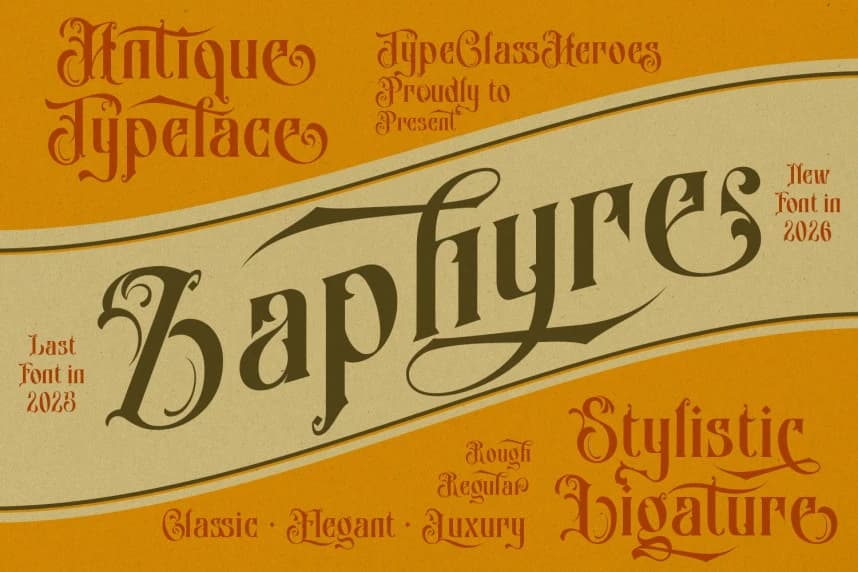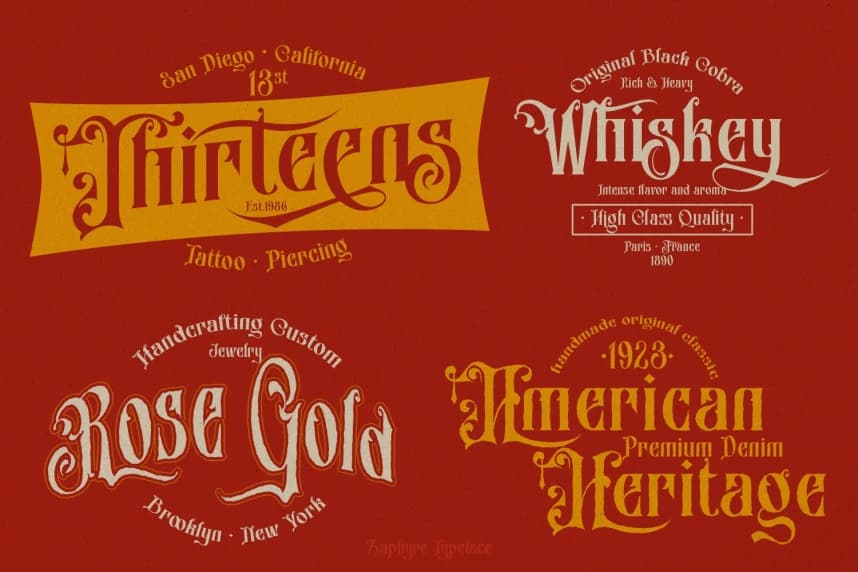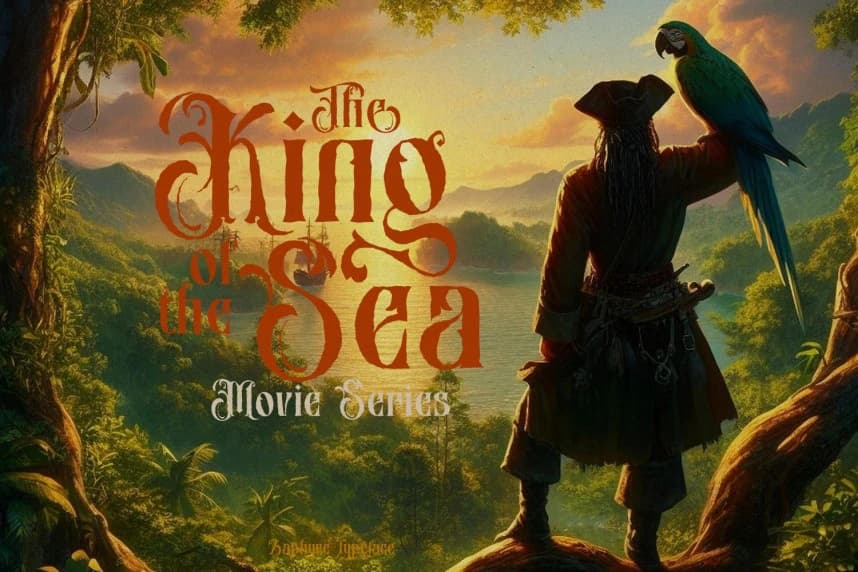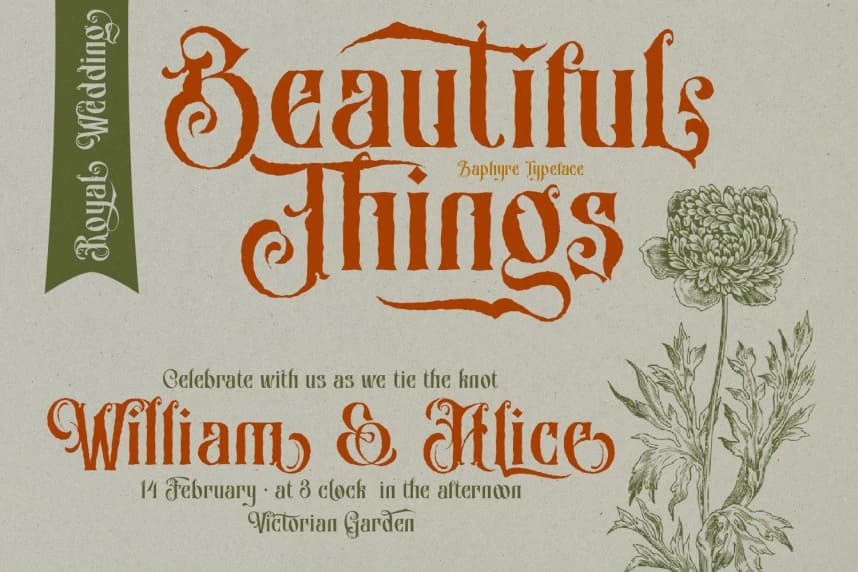
Zaphyre Font
Zaphyre Font, a font that showcases an antique typeface style enriched with numerous ligatures, swashes, and swirling ornaments available in both regular and rough versions. This font exudes elegance, artistry, and character, with each letter flowing intricately to create a fantasy